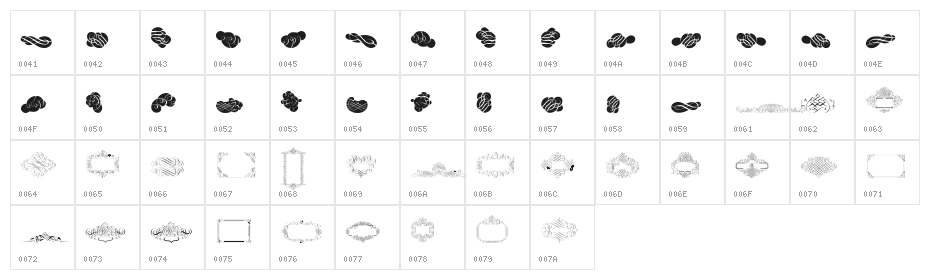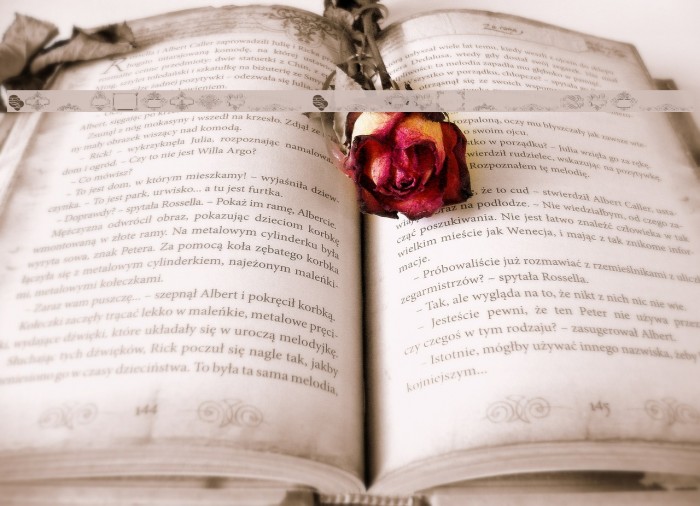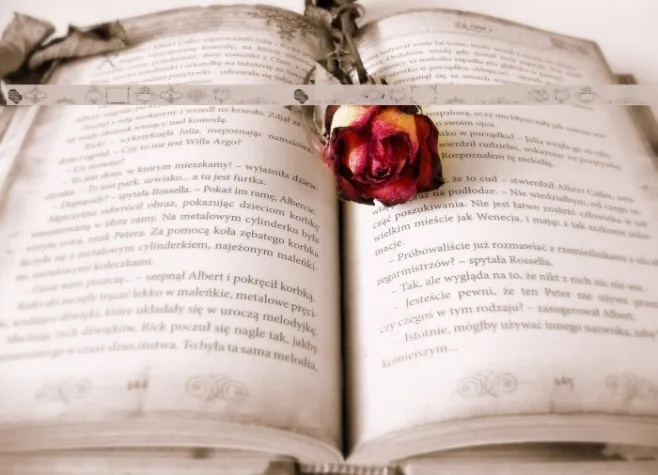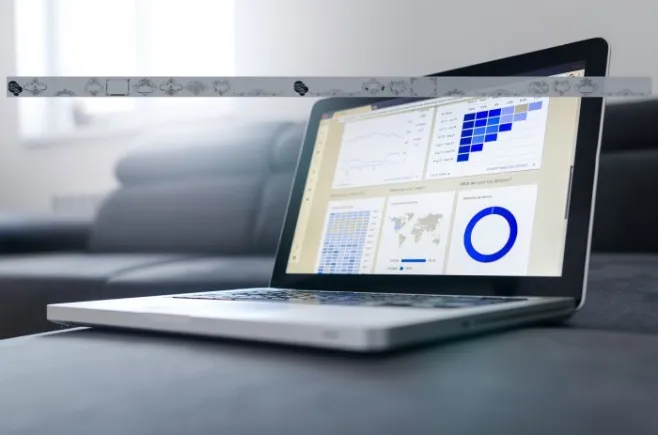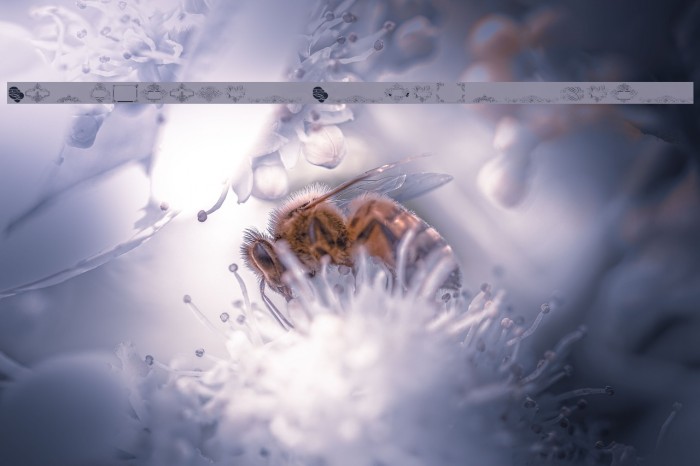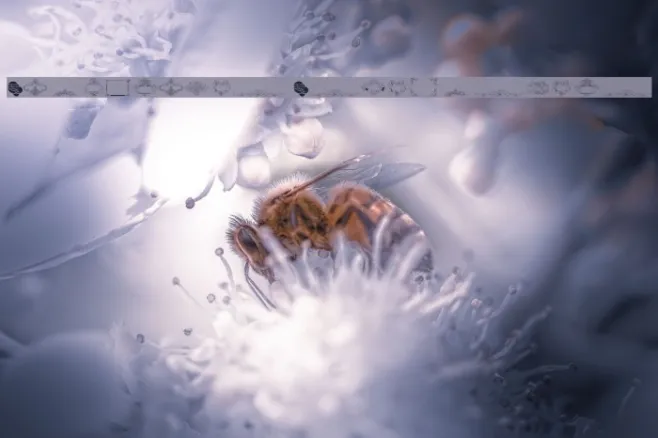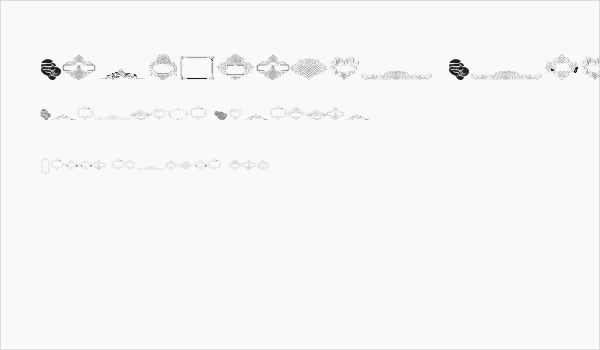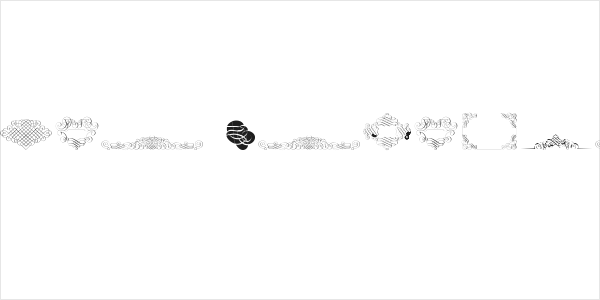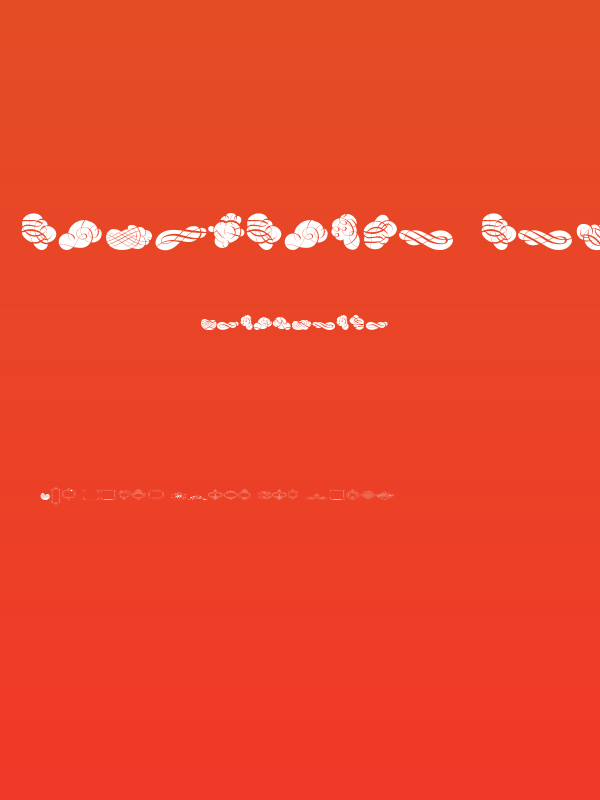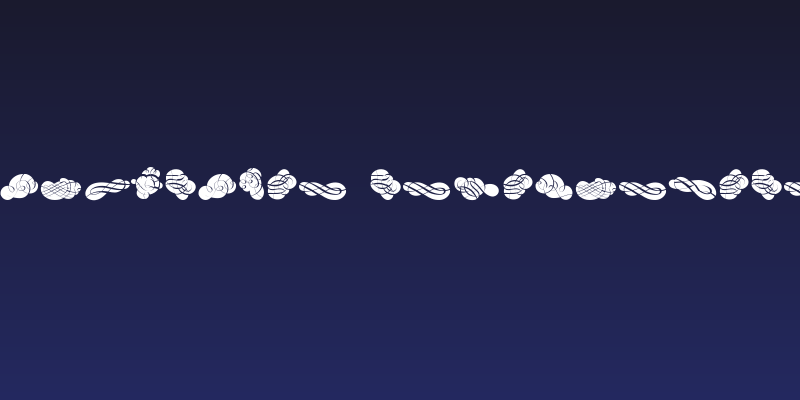
Cornucopia Caligrafica Font
Cornucopia Caligrafica Description
This is not a traditional font but rather a collection of decorative elements and ornaments. The design features intricate, swirling patterns and flourishes that resemble calligraphic embellishments. These elements are highly detailed, with both bold and delicate lines creating a sense of elegance and sophistication. The style is reminiscent of vintage or classical decorative art, often used in ornate designs. The elements vary in complexity, with some being simple flourishes and others forming elaborate frames or borders. This collection is ideal for adding a touch of luxury and refinement to design projects.
Overall StyleVintage, Decorative
Use CaseDecorative elements, Borders, Invitations
Proposed ProjectsIdeal for wedding invitations, luxury branding, vintage-themed designs, and decorative borders.